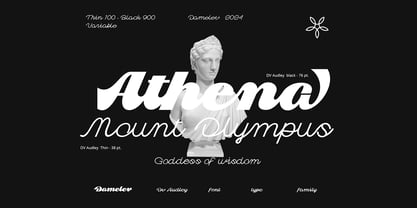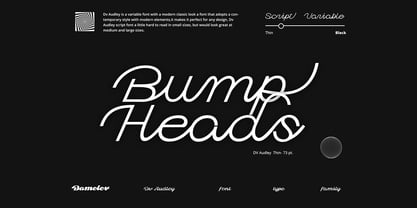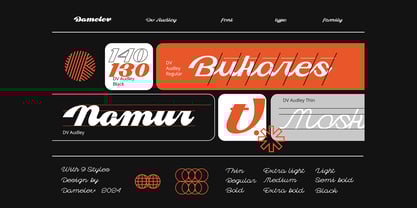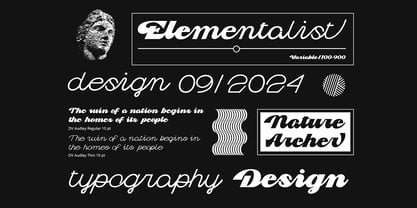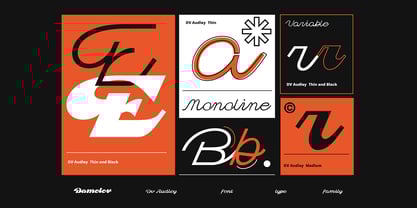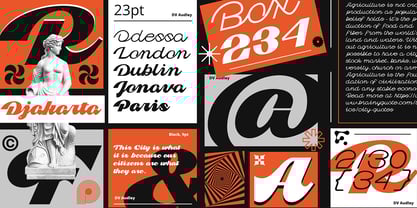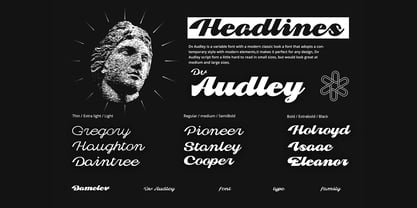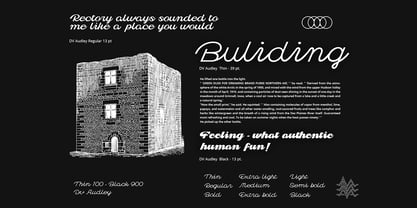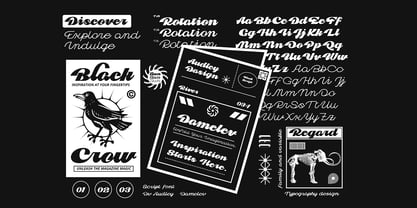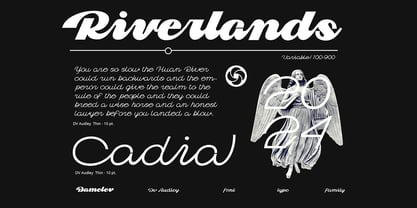
Dv Audley
The Dv Audley Font Family was designed by Tanzil Adduha and published by Tanziladd. Dv Audley contains 9 styles and family package options. More about this family
Dv Audley is a variable font with a modern classic look a font that adopts a contemporary style with modern elements,it makes it perfect for any design, Dv Audley script font a little hard to read in small sizes, but would look great at medium and large sizes. The pack also includes nine different which are Thin, Extra Light, Light, Regular, Medium, Semi Bold, Bold, Extra bold, Black, and support multilingual.
Dv Audley